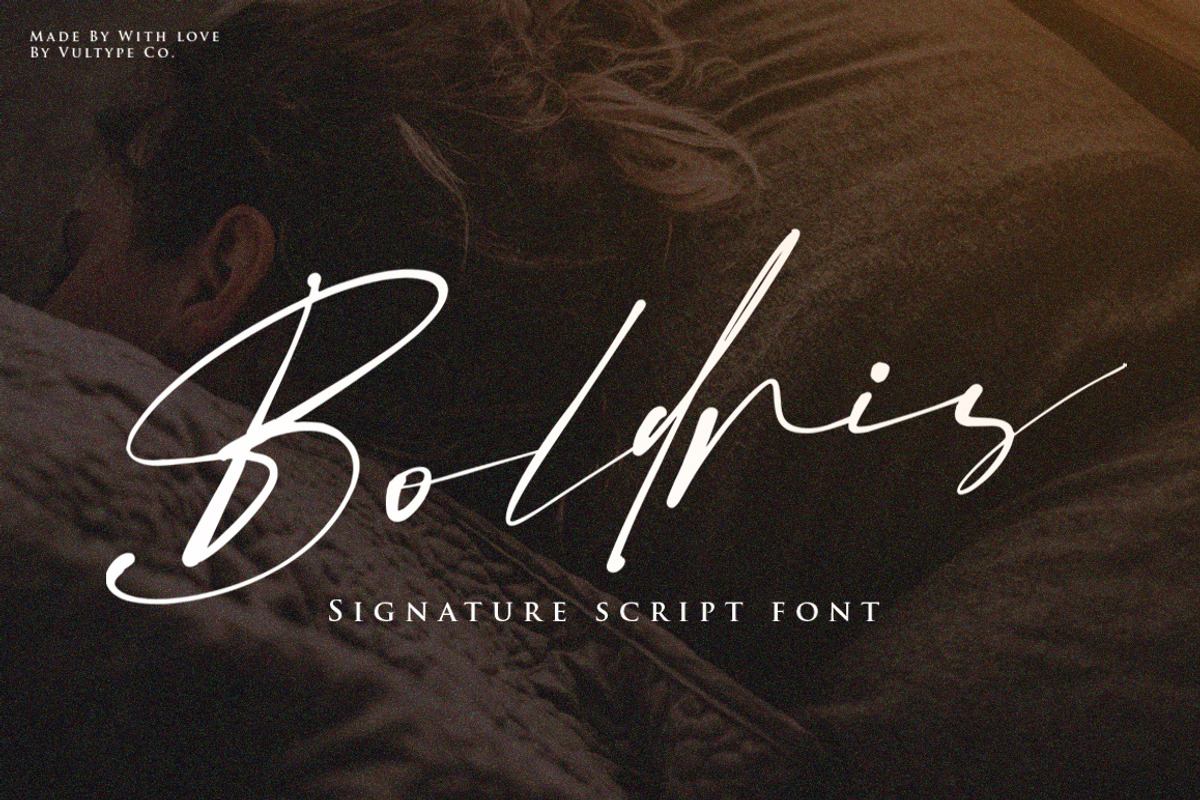
The Boldris Signature Font Free Download is an elegant and sophisticated handwritten script typeface that mimics the flow of a personal signature. Perfect for branding, business logos, wedding invitations, personal signatures, and stylish stationery, this font exudes a refined and professional look.
With smooth curves and flowing strokes, Boldris Signature gives your designs an authentic, custom feel. It includes uppercase and lowercase letters, ligatures, stylistic alternates, punctuation, and multilingual support, providing flexibility for all your creative projects.